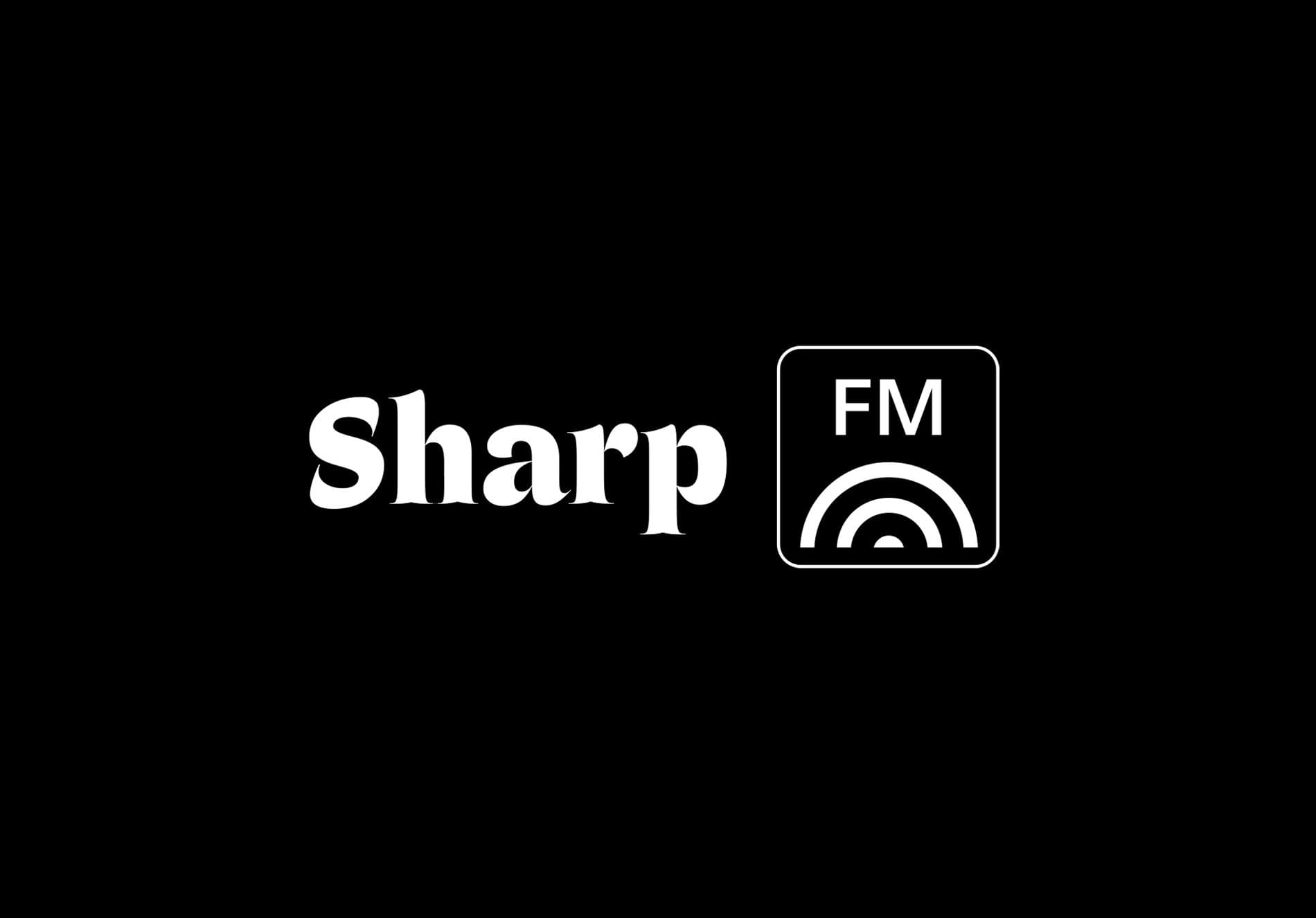
Introducing Sharp FM, our official Soundcloud channel where you’ll find music and all things audio-related in the world of Sharp Type. Our debut is a mix of classical music for Octave’s release by guest DJ JenMonroe. It’s a spritely and contemplative tonal sine wave, good for use in most any scenario, much like Josh Finklea’s typeface.
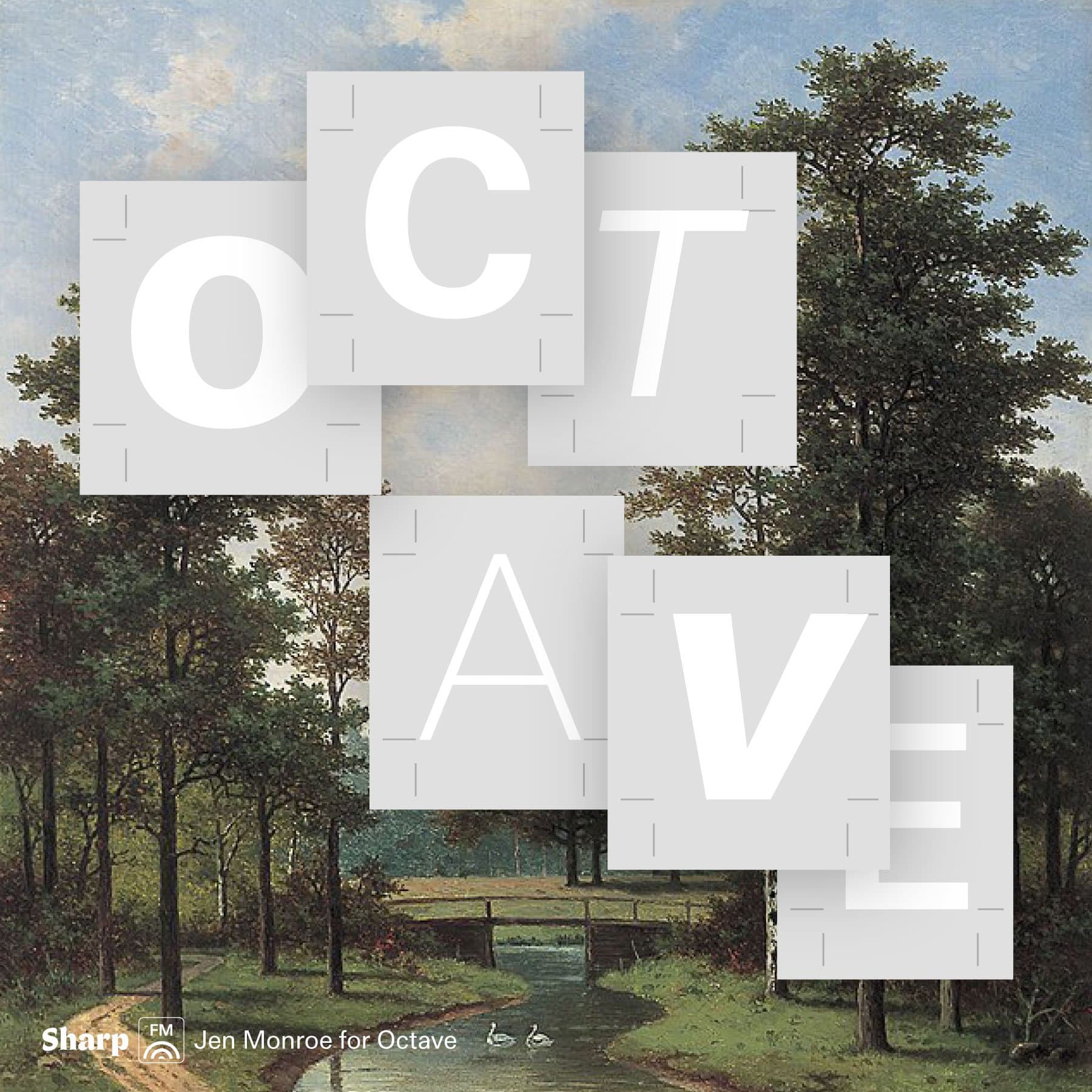
Josh’s love of classical music became the natural starting point for Octave’s art direction, and while we were in production, we felt that this a great opportunity for us to debut Sharp FM with a complementary soundtrack. Jen Monroe was our only real choice for this mix, and thankfully she was interested and available. For the uninitiated, Jen hosted the popular album-download blog Listen To This, and we love Getting Warmer, her monthly show on NTS Radio, which is renowned for its deep-and-wide appreciation for ambient, Japanese new wave, left field pop, and, of course, classical.
Guest DJ Jen Monroe, whose NTS show Getting Warmer features episodic deep dives into classical sub-genres such as choral and harp, while also veering into the worlds of gospel, Robbie Basho, and even K-pop.
Robert Schumann’s inimitable late-period “Gesänge der Frühe”--which translates to “Songs of the Dawn”--is Josh Finklea’s favorite piece of music, and the mix starts with its cascading fourth movement. Overall, the selections are piano-centric and lean on the Romantic period with some fun discursions. “There are a few curveballs in here,” says Jen. “Most noticeably a Debussy art song sung by Eileen Farrell, because it's an all-time favorite recording of mine and the piano accompaniment is gorgeous.” The mix is by turns soothing and invigorating, perfect for the changing seasons.
Autumn arrived right on time on the East Coast this year, and the liminal beauty of the shifting seasons is always inspiring. Jen notes that the music “definitely hits its peak ‘autumnal moodiness’ stride in the second half, with Mahler's abandoned piano quartet and a movement from Liszt's legendary sonata in B minor, and goes out on a high note with Ravel's wild ride finale from his piano trio.”
Octave is a typeface that is calm, pragmatic, and understated. When we asked Jen to consider Octave’s web copy for musical inspiration, we weren’t sure how this would translate synesthetically. “I tend to gravitate towards classical music that is drippy, florid, and loose, so in the spirit of Octave it was a fun challenge to try to steer towards things that are (a bit!) more spare. I'd say in the end this selection splits the difference.”
SHARP FM: A LITTLE BIT ABOUT OUR LOGO
We went through a dozen different possible names for the Sharp Type Soundcloud, and we finally went with our first idea. In the end, the content will define the channel, but we wanted a name that is connotative of accessibility and a touch of familiarity.
“Talk less, listen more” is the unofficial Sharp FM slogan, cribbed from a Tokyo jazz kissa, and this is the state of mind we’re always chasing. When it came to the design of the Sharp FM logo, Justin Sloane found visual inspiration from sources that dovetailed with our name and motto: "The radio-wave Sharp FM logo is a nod towards pre-internet public radio/TV broadcast logos, an era when the flow of information was slower and more thoughtful."